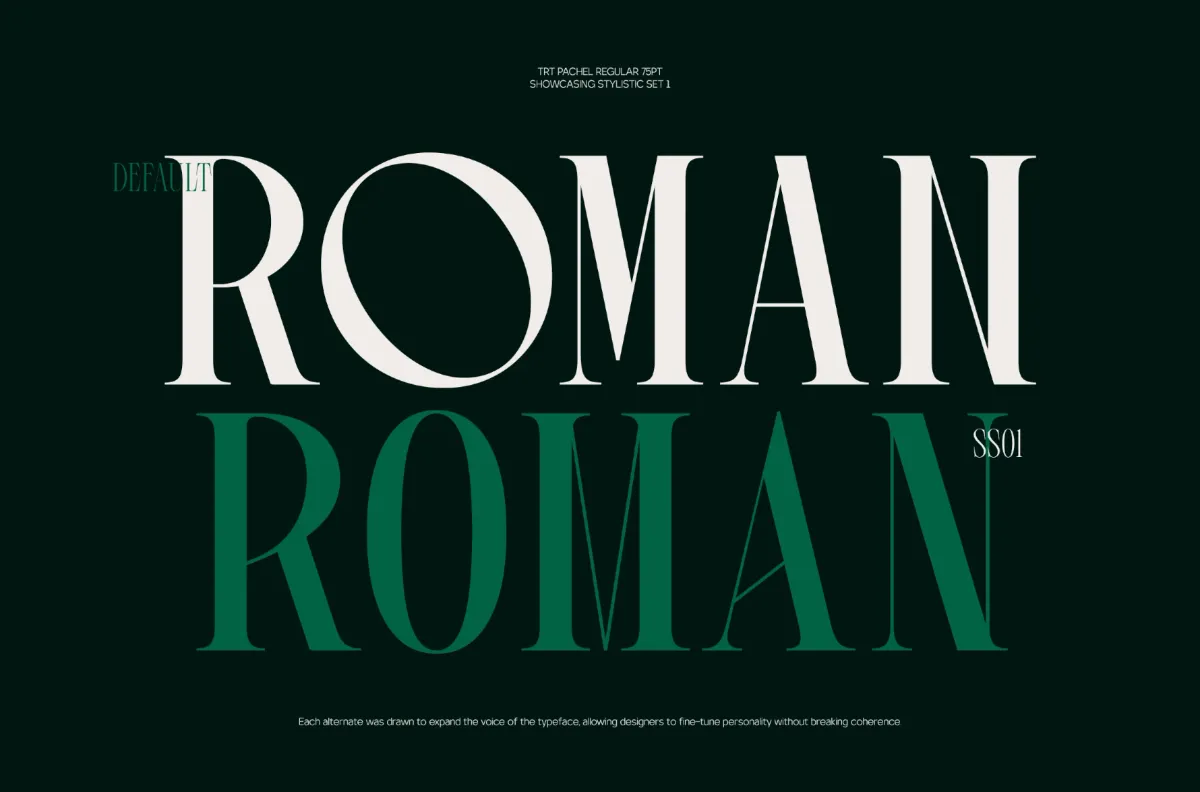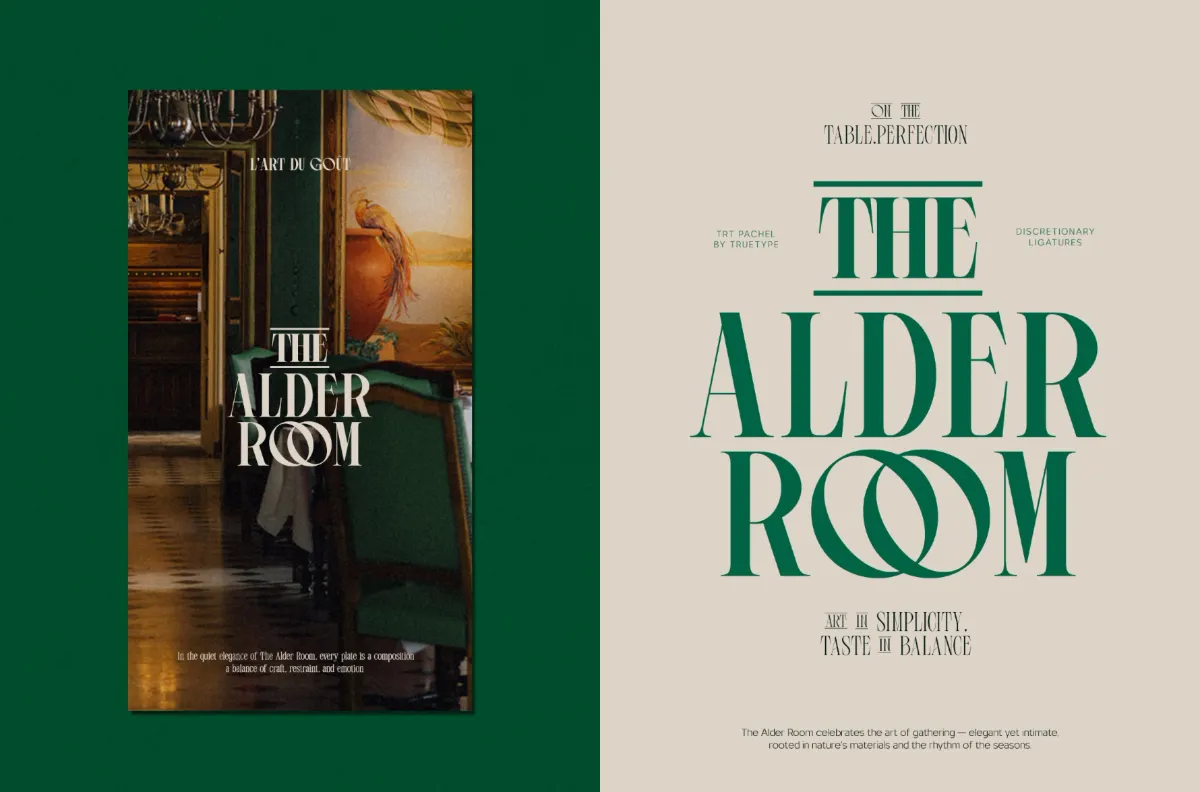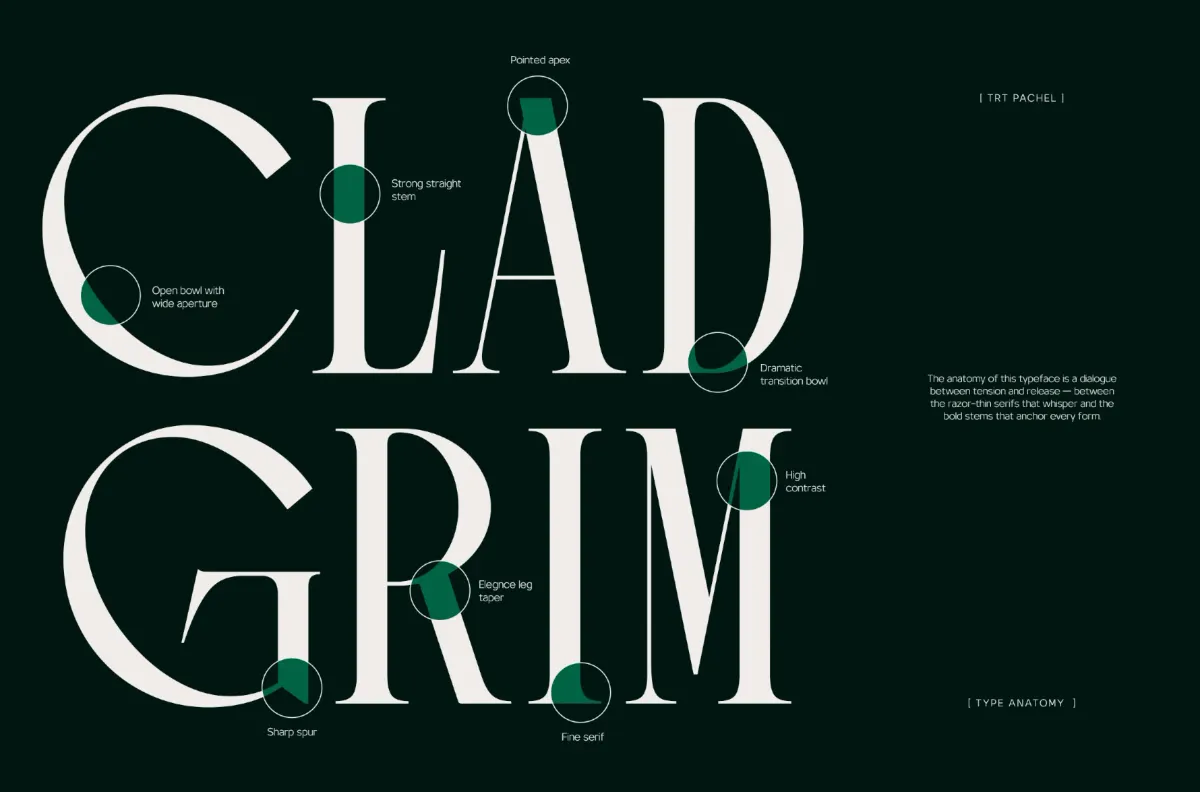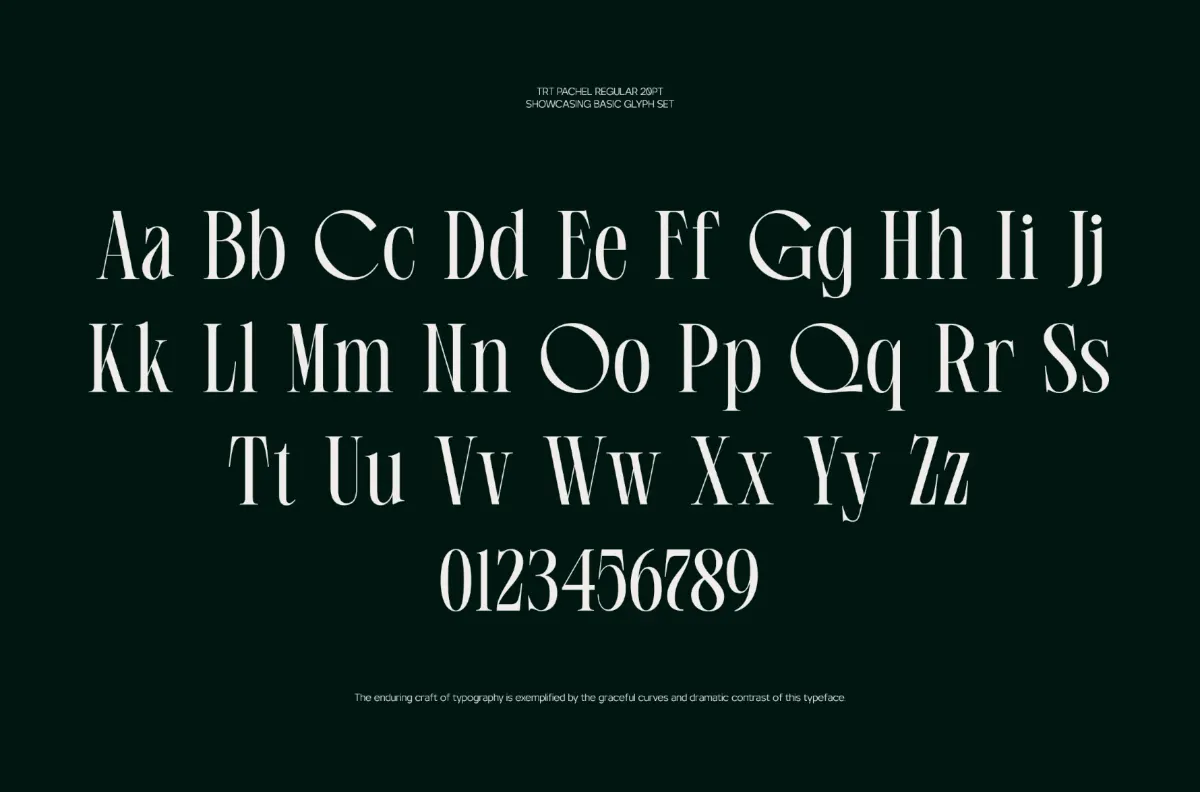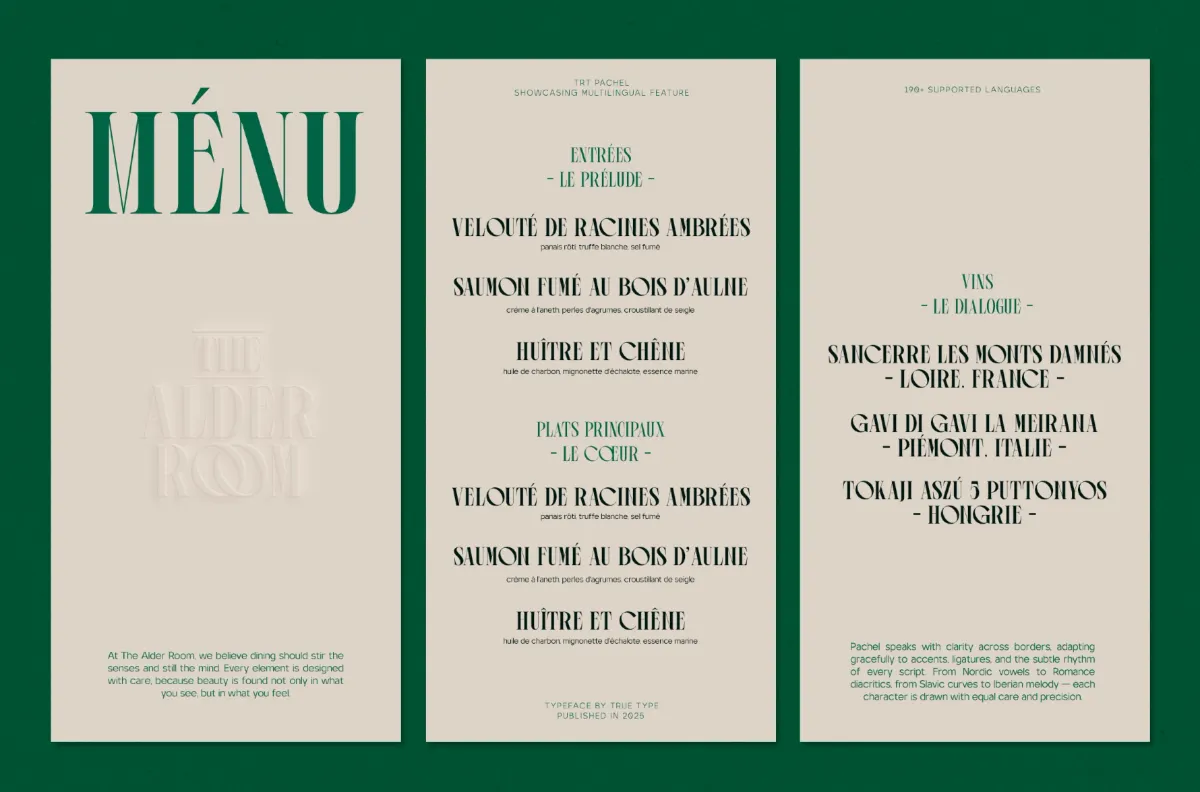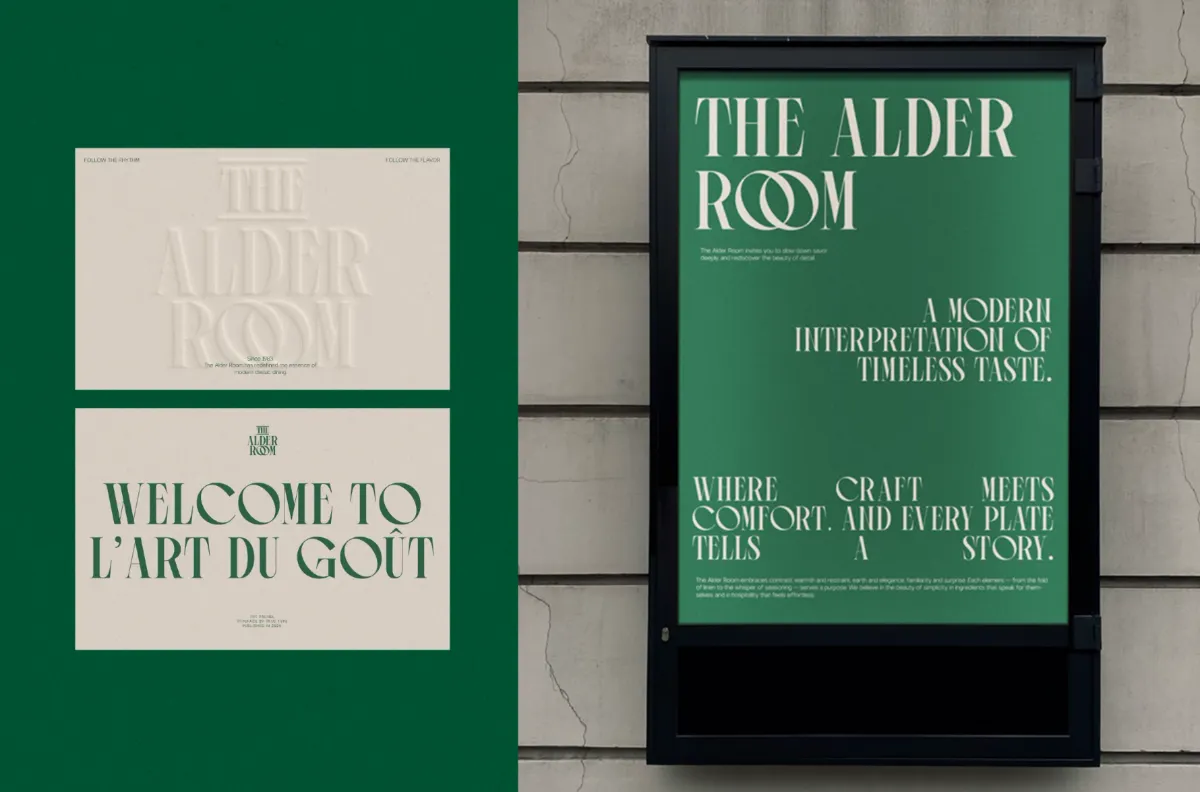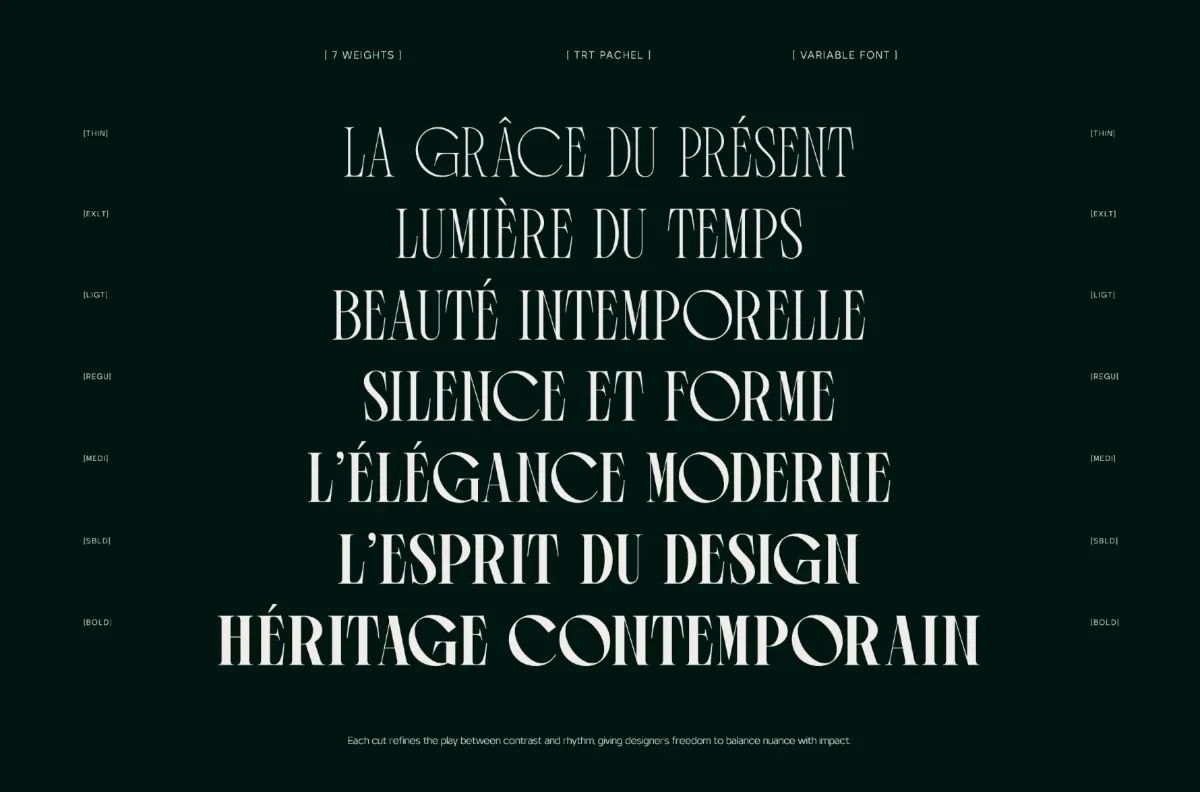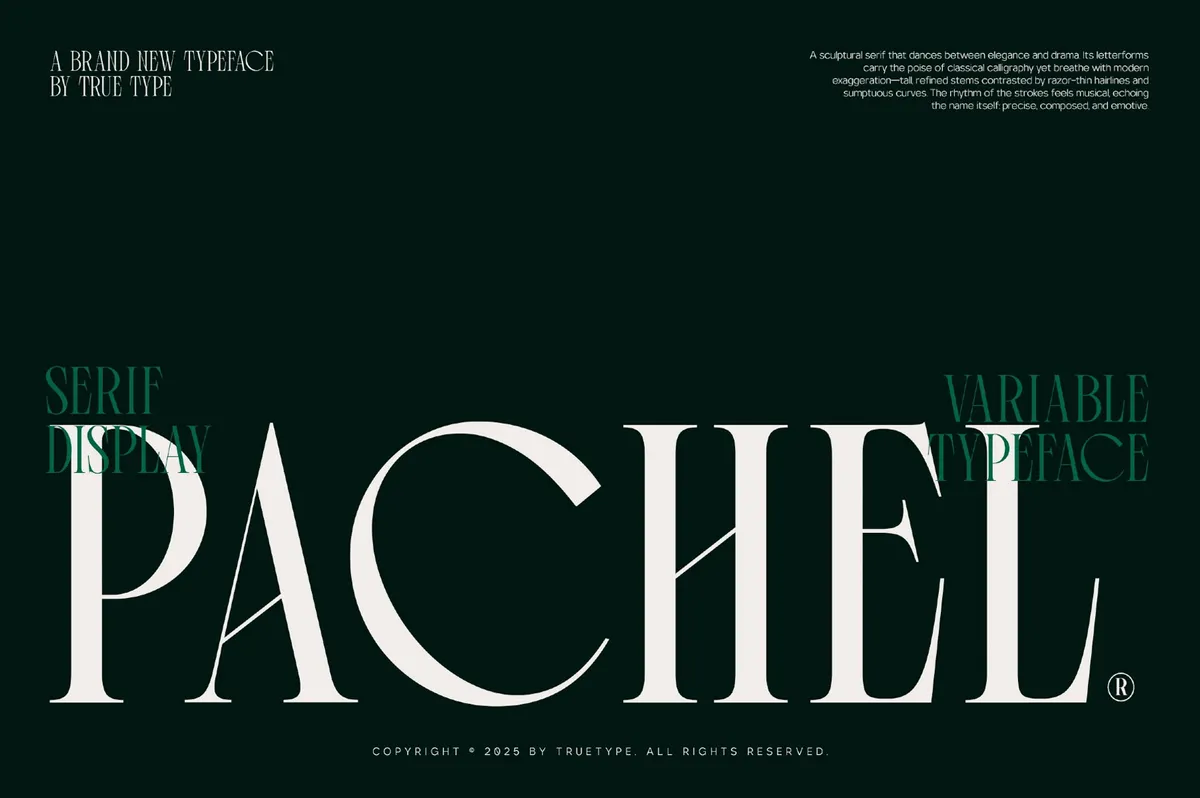
TRT Pachel - Luxury Editorial Serif Font
Pachel works as a study in contrast — a pointed apex here, a wide-open bowl there, fine hairline serifs set against stems bold enough to anchor the whole letterform. That tension between tension and release runs through all seven weights, from a whisper-thin Thin to a Bold with real editorial weight behind it, and it's what keeps the typeface feeling sculptural rather than simply decorative.
It suits spaces built around a sense of occasion: fine-dining menus and wine lists, boutique branding, magazine mastheads, and logotypes that need to carry a little drama. Stylistic alternates across more than twenty characters, plus a set of discretionary ligatures, let a single headline shift register without ever feeling repetitive.
• 7 styles: Thin, Extra Light, Light, Regular, Medium, Semi Bold, Bold;
• Stylistic alternates across 20+ characters, two additional stylistic sets, standard and discretionary ligatures, fractions, ordinals, superscript figures, kerning;